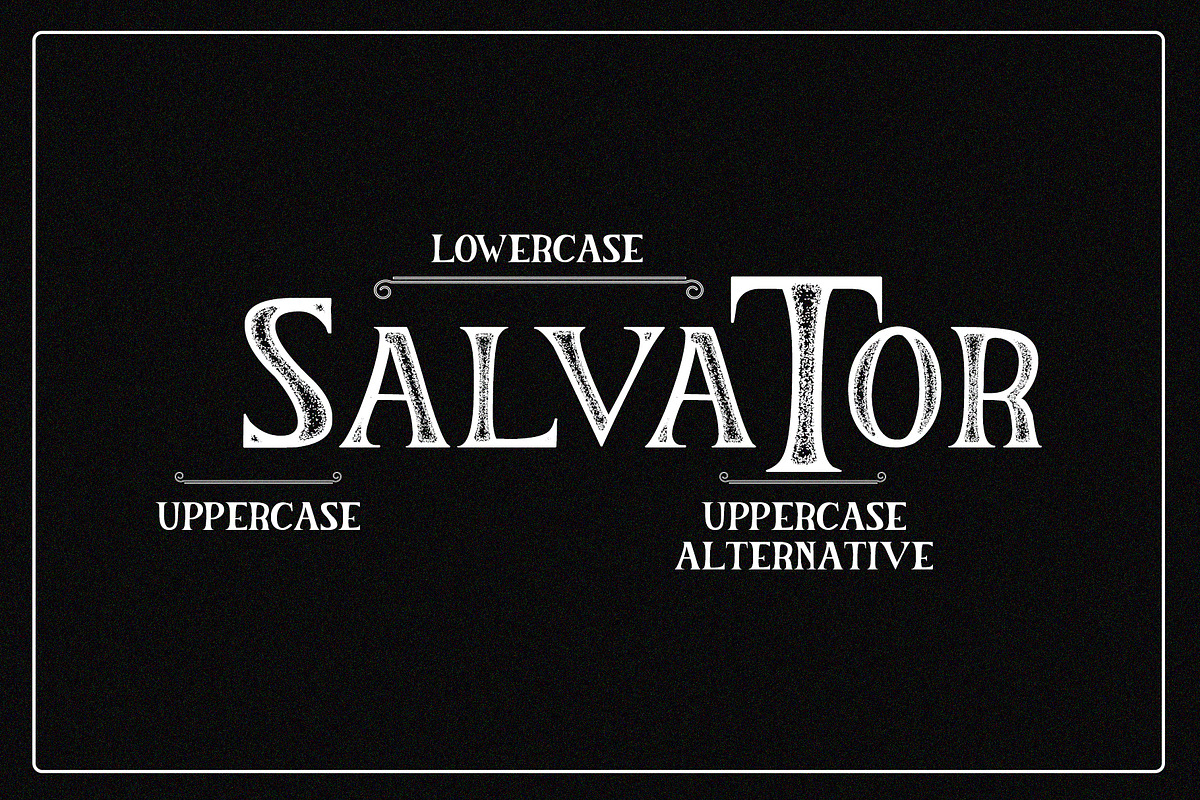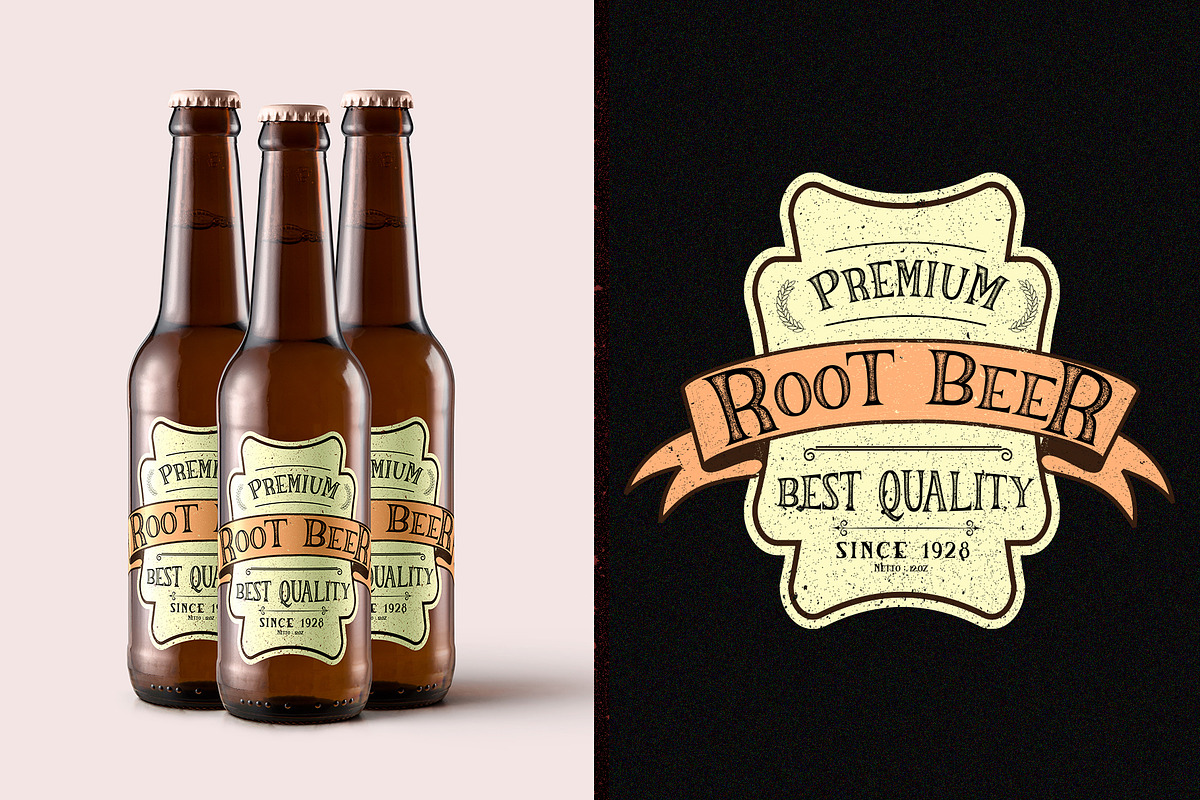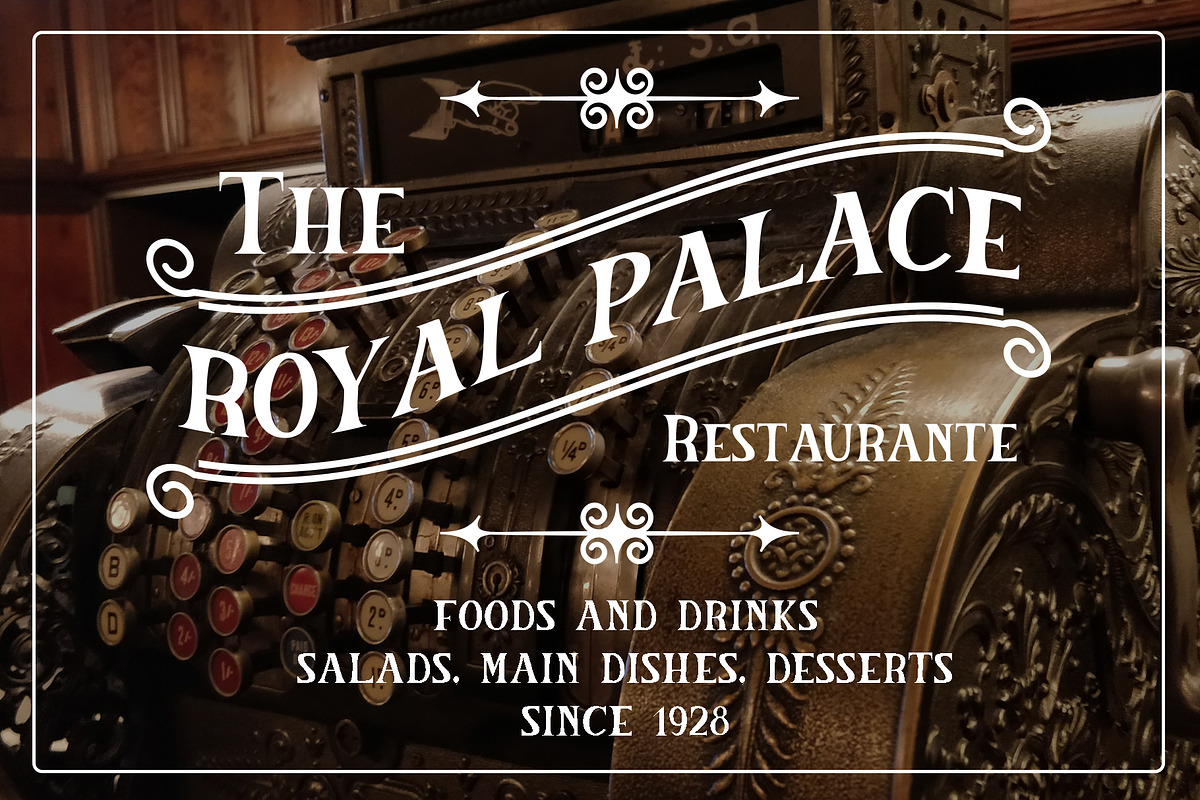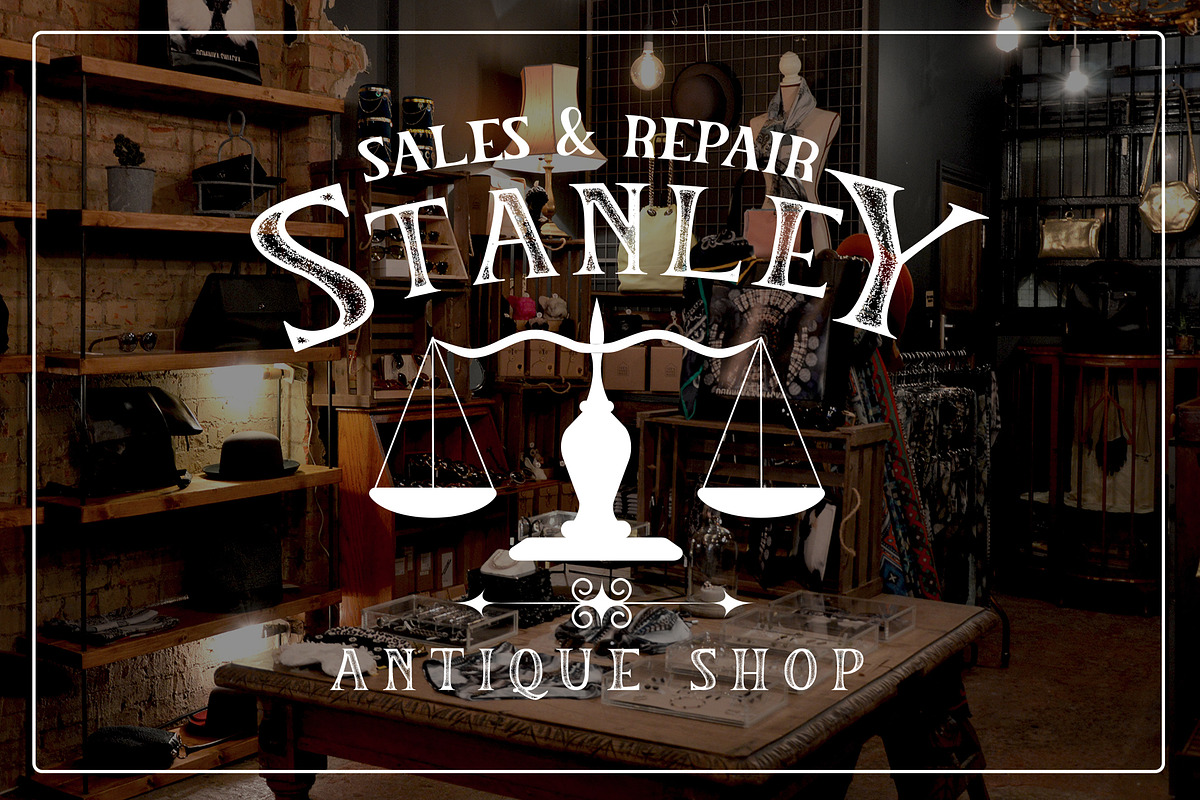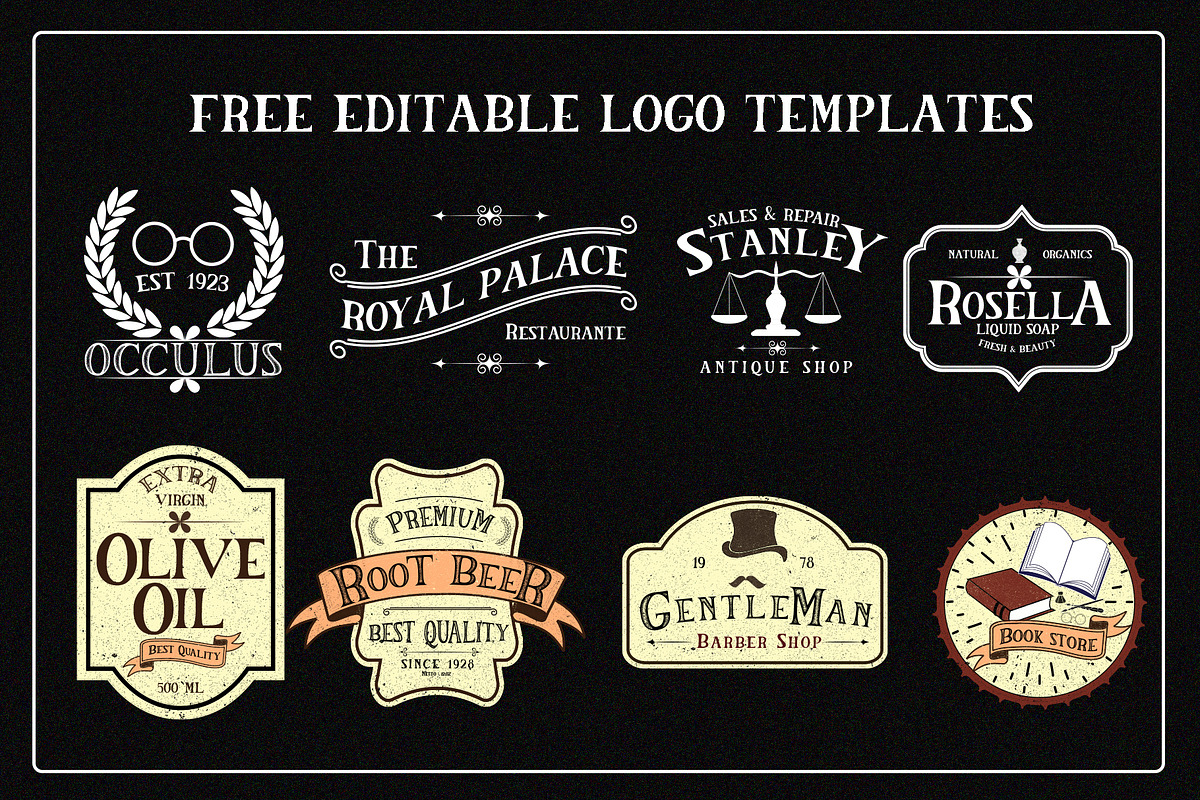
The Salvator - Vintage Font Package
Introducing, The Salvator Vintage Font Collection. Inspired by vintage style arts. The Salvator comes in 2 font versions, Regular and Textured. All in caps-serif family. Great for you who loves antique things and designs. With special BONUS extra Vintage Set of badges, wreaths, banners, line dividers, vintage illustrations and also 8 Vintage Logo Templates!
All in caps font. In clean version & textured version. Completed with numerals, symbols and punctuations. Multilingual Support 3 Options Heights ( Uppercase, lowercase and Alternated style ) Ligatures ( Co, Ce, Eo, ee, li, le, ll, lo, ss, tt ) Extra 42 pcs Vintage Vectors Set in EPS & AI File Format ( Badges, Wreaths, Banners, Line Dividers, Vintage Illustrations ) Extra 8 Editable Vintage Logo Templates in EPS & AI File Format.
- Completed with numerals, symbols and punctuations.
- Multilingual Support 3 Options Heights ( Uppercase, lowercase and Alternated style ) Ligatures ( Co, Ce, Eo, ee, li, le, ll, lo, ss, tt ) Ex